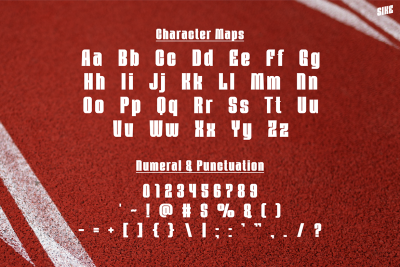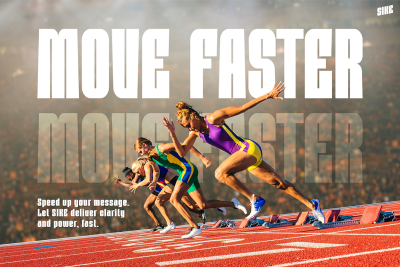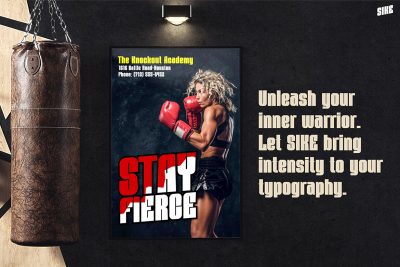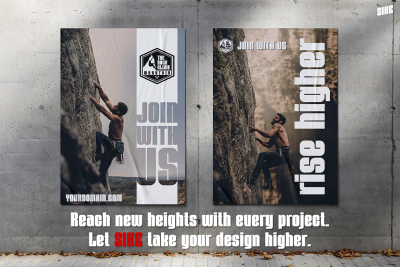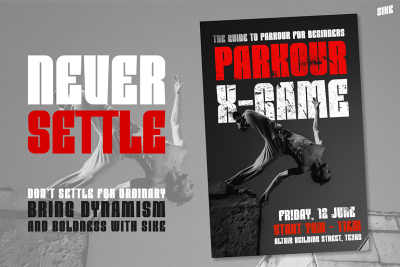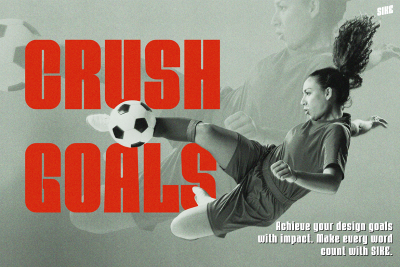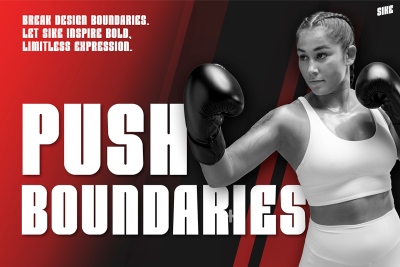
Sport Fonts Sike is a bold, high-impact typeface crafted to add intensity and strength to any design. This fontโs thick, blocky letters command attention, making Sport Fonts Sike ideal for visuals that need a powerful presence. Capturing the energy, resilience, and movement of athleticism, Sport Fonts Sike is perfect for sports, adventure, or fitness themes. Whether used in digital media, print, or merchandise, this fontโs striking style turns text into a focal point.
The structure of Sport Fonts Sike balances simplicity with boldness, ensuring readability in fast-paced settings. It adapts well across various mediums, from posters to social media graphics. Its robust, clean design communicates confidence without overwhelming the overall look. With Sport Fonts Sike, you can create visuals that not only stand out but also resonate with audiences looking for strength and determination.
Sport Fonts Sike Perfect For
Sport Fonts Sike is ideal for designers, marketers, and content creators looking to add energy and boldness to their visuals. This font is especially suited for sports branding. Its powerful design captures the excitement of athletic competition, making Sport Fonts Sike a strong choice for team logos, tournament banners, and promotional materials. Sports brands and events can use Sport Fonts Sike to convey power and unity, strengthening their identity and engaging fans.
Additionally, Sport Fonts Sike is perfect for fitness and gym branding. Fitness studios, trainers, and gyms can use this font on signage, schedules, and branded merchandise. Its strong look aligns with themes of strength and endurance, inspiring gym-goers. Whether on social media or in marketing materials, Sport Fonts Sike delivers a message of motivation and resilience, helping fitness professionals connect with their audience.
Outdoor brands and adventure companies can also benefit from Sport Fonts Sike. For brands that promote extreme sports, hiking, or climbing, Sport Fonts Sike conveys grit and determination. Itโs an excellent choice for packaging, branding, and promotional materials that need to appeal to an adventurous audience. The fontโs bold style fits the spirit of the outdoors, attracting customers drawn to challenge and exploration.
In conclusion, Sport Fonts Sike is a versatile typeface suited for sports branding, fitness promotions, events, digital content, and merchandise design. Its bold design is ideal for any project aiming to convey strength, confidence, and excitement. Whether youโre a designer, marketer, or content creator, Sport Fonts Sike enhances visuals, capturing the intensity and passion of sports and fitness.